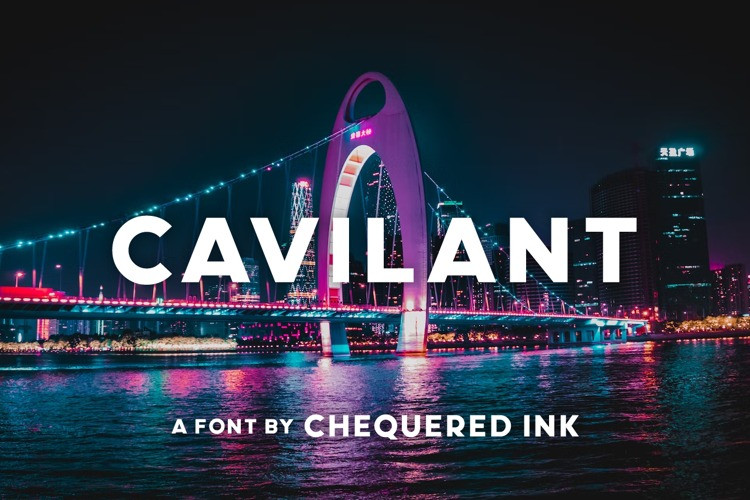
Cavilant Font
Cavilant Sans Serif Font, This bundle features strong, confident and powerful typefaces designed to work great with sports logos, club branding, apparel applications, labels and more.